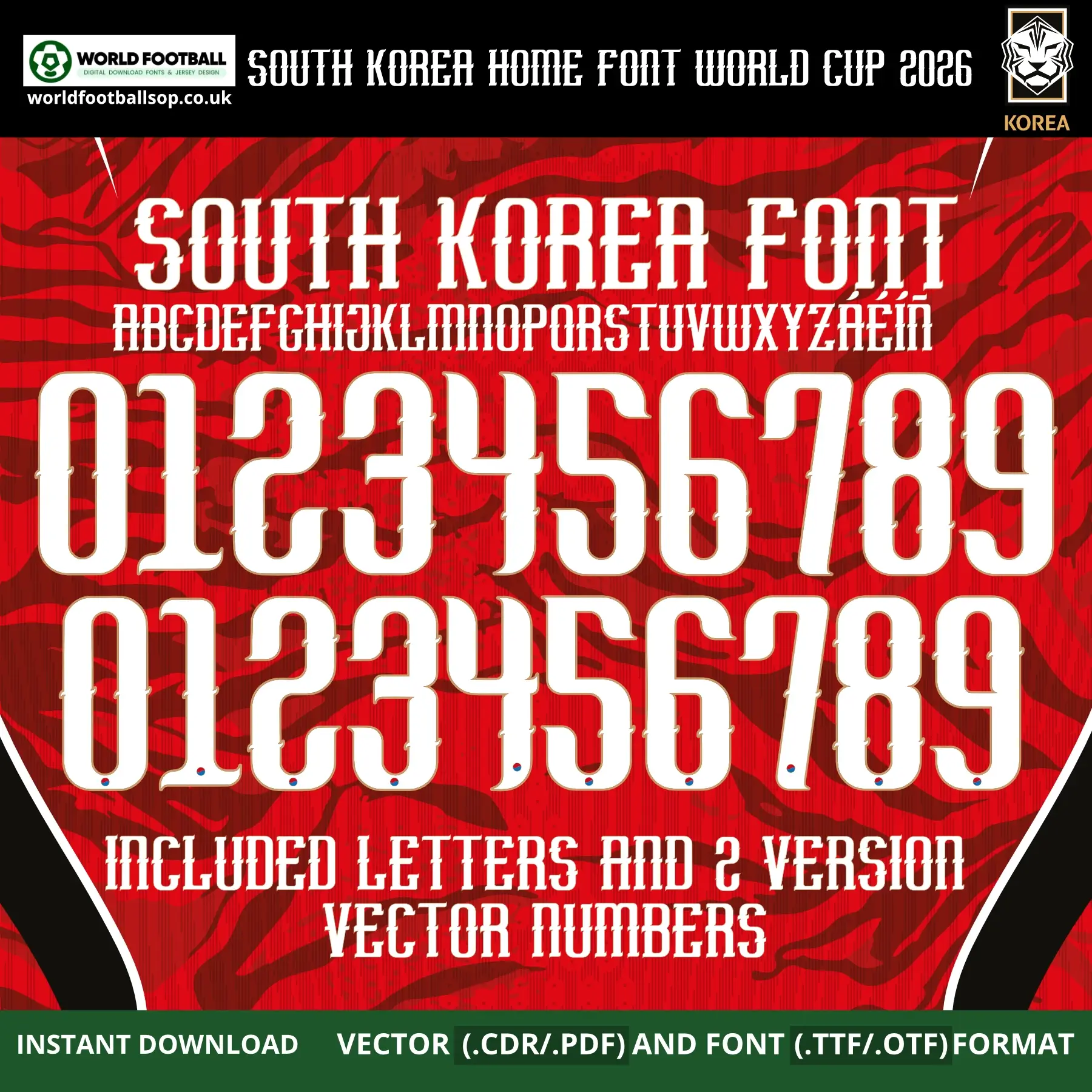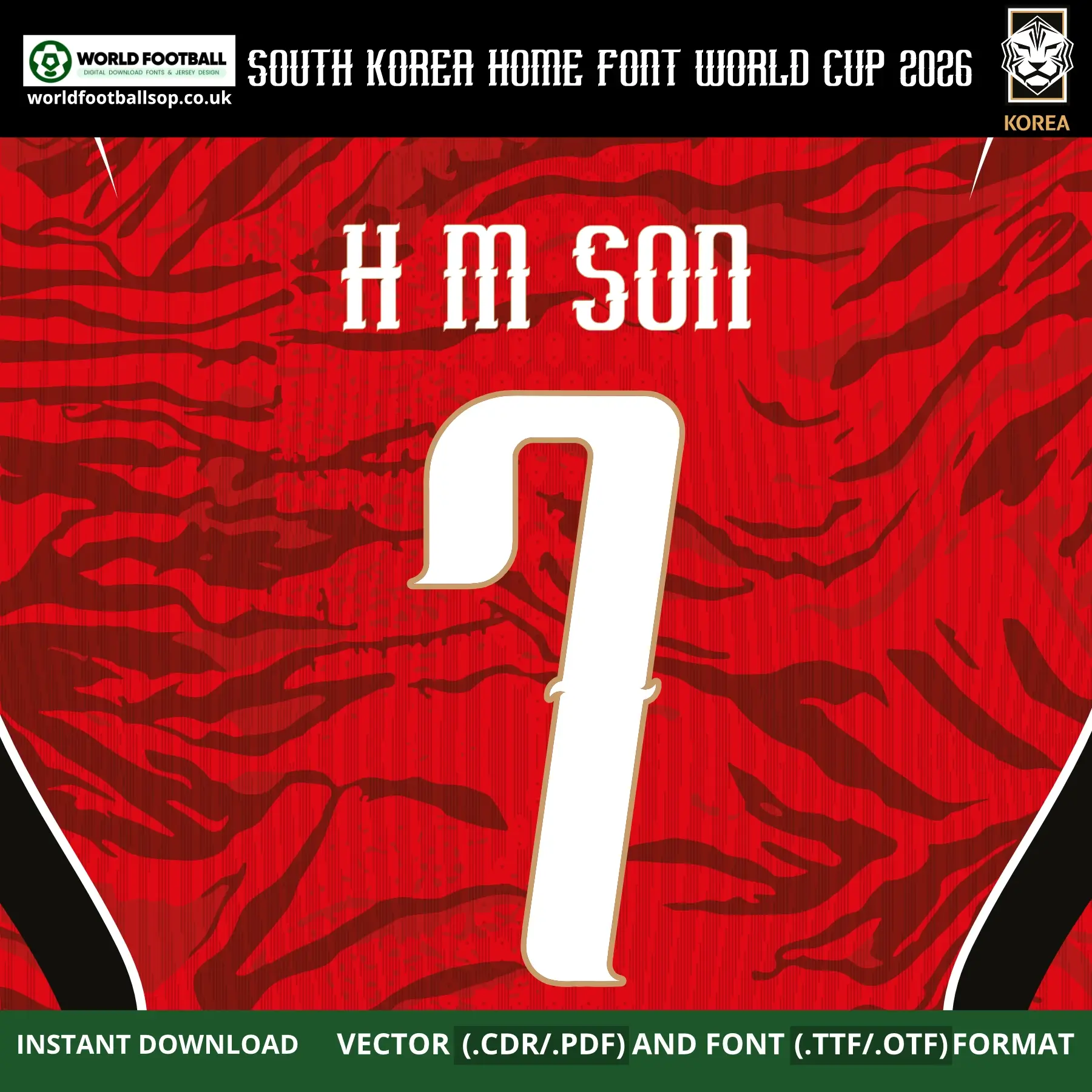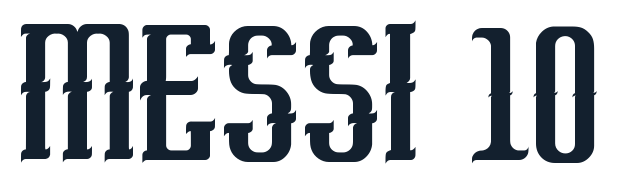
South Korea Home Font World Cup 2026 - Official‑style Jersey Typography
This South Korea Home Font World Cup 2026 font football kit recreates the bold, distinctive lettering used on South Korea's red home shirts for the 2026 FIFA World Cup in USA, Mexico and Canada. The wide, chunky numbers and letters feature a unique serif-style design with small decorative notch details, capturing the striking character of the official kit typography against the iconic red tiger-stripe pattern background. It is perfect for fans, designers and printers who want authentic‑looking names and numbers on custom South Korea kits and football graphics.
The font is supplied in both desktop formats (TTF/OTF) and scalable vector files so you can work comfortably in your favourite design software. The white lettering with gold outline detail on the deep red tiger-stripe background seen in the previews mirrors South Korea's official home colour palette, making your mockups and prints look match‑ready. A special bonus included with this pack is 2 versions of the vector numbers - giving you extra flexibility for different printing and design applications.
2 versions of vector numbers for maximum design flexibility
Full uppercase alphabet A-Z and numbers 0-9 with extended Latin accents (Á, É, Í, Ñ)
Preview layouts showing complete number set and example name/number combo - H M SON 7
World Cup accuracy: Inspired by the exclusive South Korea Home Font World Cup 2026, not a generic typeface
High legibility: Bold, wide forms with decorative notch details keep numbers clear on both TV and print designs while maintaining South Korea's unique identity
Whether you are designing a full squad of custom South Korea shirts or a single fan jersey with your own name and number, this South Korea Home Font World Cup 2026 gives your project a professional, on‑pitch look.